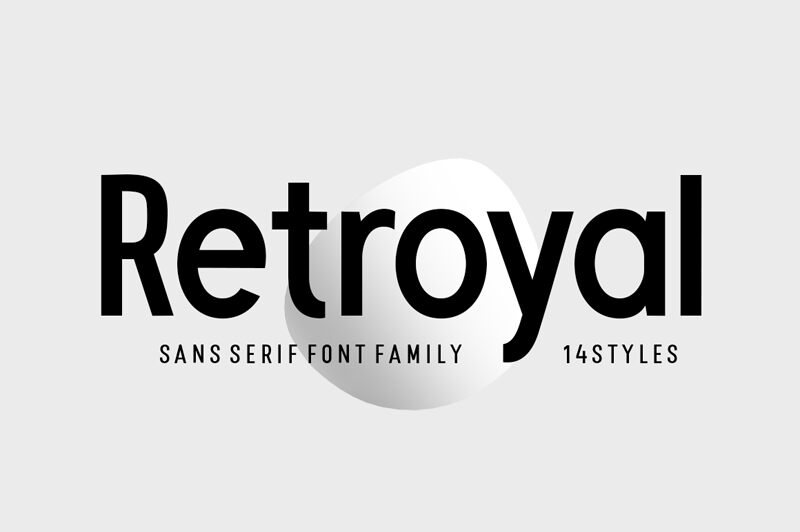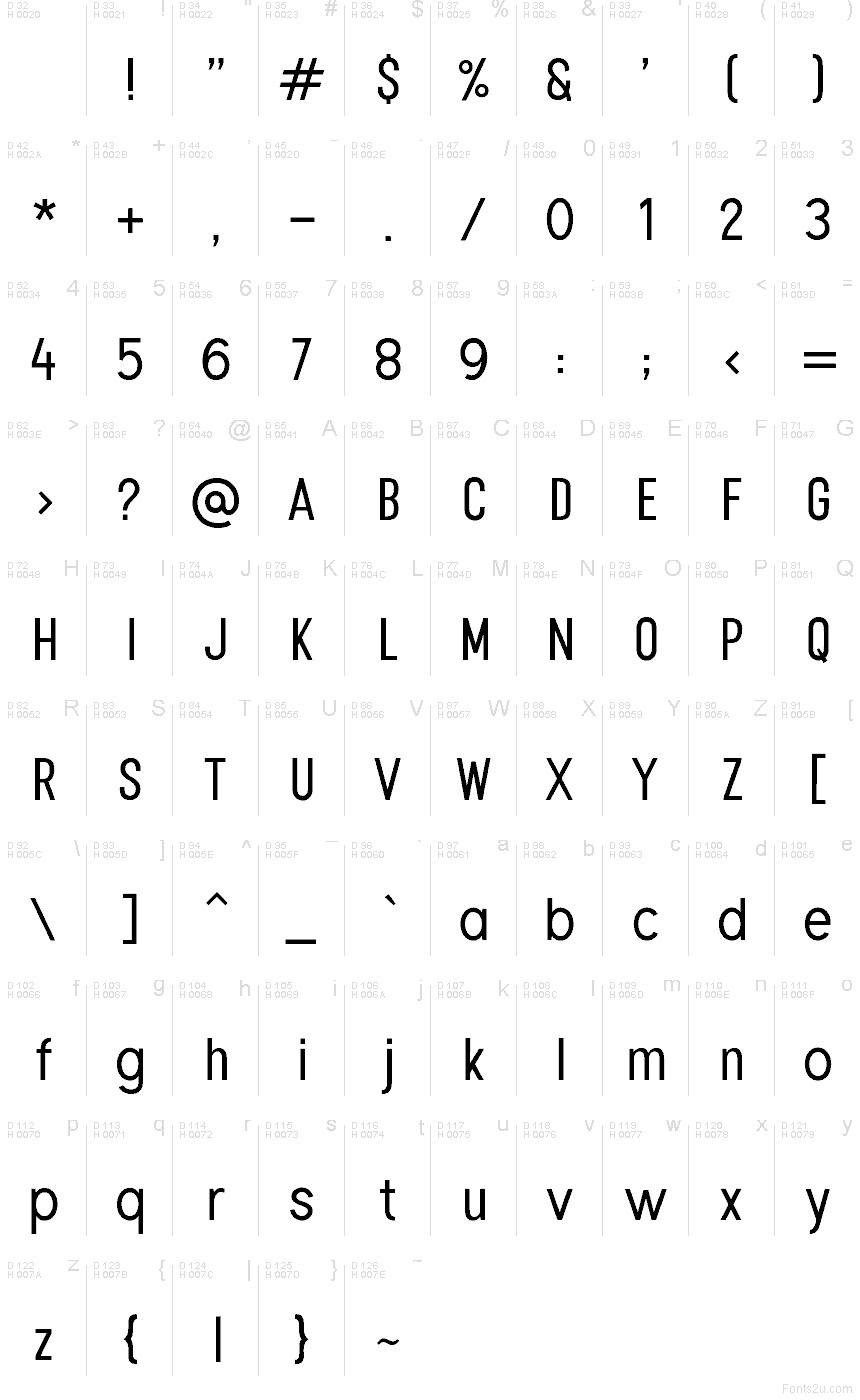
Retroyal Medium
Retroyal Medium font by Mega Type is a free sans serif typeface that finally hits that sweet spot between friendly and professional. Its smooth curves, open shapes, and even color on the line give text a calm, confident feel—crisp enough for serious work, but with a subtle warmth that keeps it from looking cold or generic. As part of the Retroyal family, this medium weight is especially handy when you need hierarchy without shouting.
Using Retroyal Medium, you can set clean logos, app interfaces, social graphics, product packaging, posters, brand guidelines, and pitch decks with a consistent, modern voice. This free font holds up beautifully at both small UI sizes and bold headings; just track it slightly tighter for large titles. For a simple pairing, use Retroyal Medium for headings and a light or regular weight from the Retroyal family for longer text.